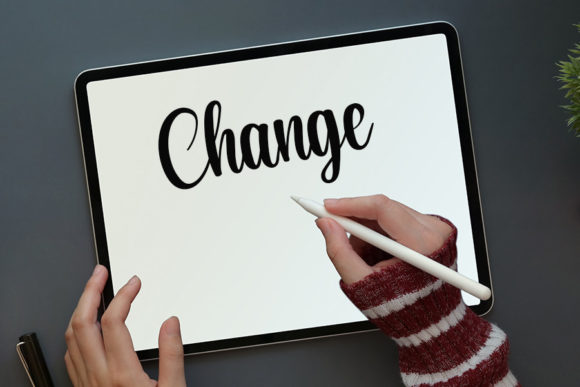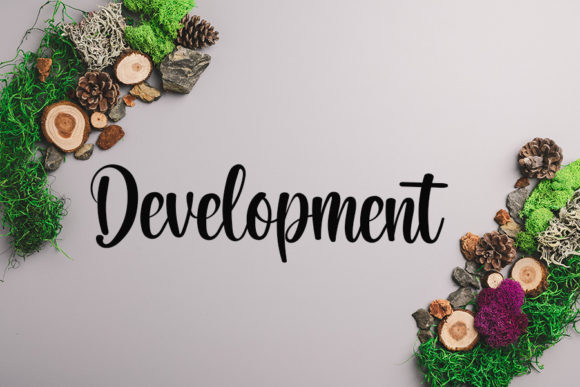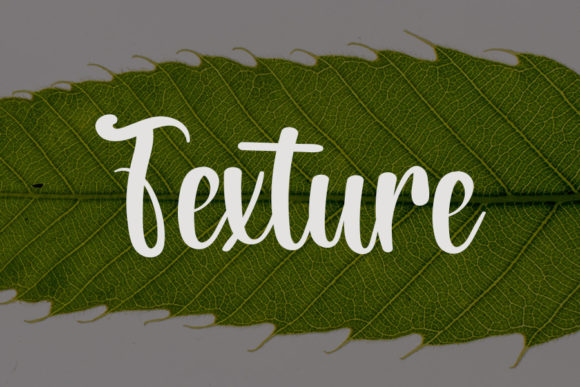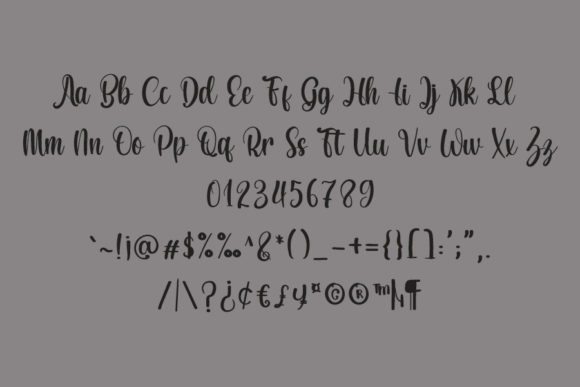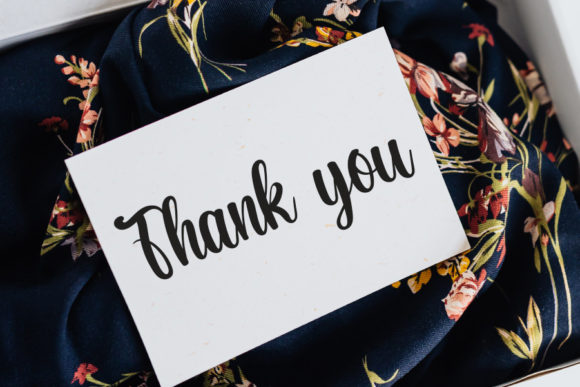
Introducing Hand Lettering Font: Elevate Your Designs with Timeless Elegance
In the world of typography, few fonts capture the essence of elegance and sophistication as beautifully as Hand Lettering Font. This stunning, well-balanced handwritten font is imbued with a contemporary atmosphere and impeccable form, drawing inspiration from timeless classic calligraphy. Whether you’re a designer, crafter, or simply a typography enthusiast, Hand Lettering Font is sure to become an indispensable part of your creative arsenal.
The Art of Hand Lettering
Hand lettering is an art form that requires skill, patience, and attention to detail. It’s a technique that involves creating custom letterforms by hand, often using a variety of tools and materials such as pens, pencils, and brushes. The result is a unique and personal style that can add a touch of warmth and character to any design.
Hand Lettering Font takes the art of hand lettering to the next level by providing a digital version of this beautiful technique. With its elegant strokes, precise letterforms, and flowing connections, this font is perfect for creating stunning designs that exude sophistication and refinement.
Key Features of Hand Lettering Font
So, what makes Hand Lettering Font so special? Here are just a few of its key features:
- Contemporary atmosphere: Hand Lettering Font has a fresh and modern feel that’s perfect for designs that require a touch of sophistication.
- Impeccable form: Each letterform has been carefully crafted to ensure that it’s precise, elegant, and visually appealing.
- Timeless classic calligraphy inspiration: Hand Lettering Font draws inspiration from traditional calligraphy, giving it a sense of history and tradition.
- Versatile: This font can be used in a wide range of contexts, from branding and advertising to packaging and digital media.
Why Choose Hand Lettering Font?
With so many fonts available, why should you choose Hand Lettering Font for your next design project? Here are just a few compelling reasons:
- Add a touch of elegance: Hand Lettering Font can add a level of sophistication and refinement to your designs that’s hard to achieve with other fonts.
- Stand out from the crowd: With its unique and distinctive style, Hand Lettering Font can help your designs stand out in a crowded marketplace.
- Perfect for branding: This font is ideal for creating brand identities that require a touch of elegance and sophistication.
Tips for Using Hand Lettering Font
To get the most out of Hand Lettering Font, here are a few tips to keep in mind:
- Use it sparingly: Because of its elegant and sophisticated style, Hand Lettering Font is best used sparingly to add emphasis and impact to your designs.
- Experiment with colors: This font looks great in a variety of colors, so don’t be afraid to experiment and find the perfect hue for your design.
- Pair it with other fonts: Hand Lettering Font can be paired with other fonts to create a unique and visually appealing typography combination.
In conclusion, Hand Lettering Font is a stunning and versatile font that’s perfect for designers, crafters, and typography enthusiasts. With its elegant strokes, precise letterforms, and flowing connections, this font is sure to add a touch of sophistication and refinement to any design. Whether you’re creating a brand identity, designing a logo, or simply looking for a beautiful font to use in your next project, Hand Lettering Font is an excellent choice.